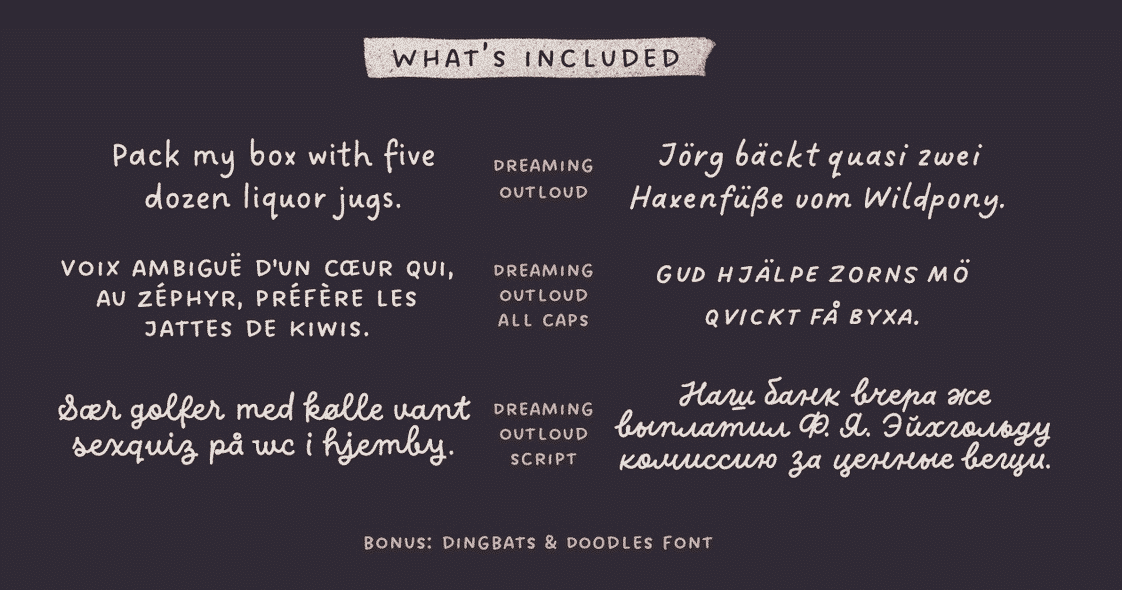
Dreaming Outloud Font
Dreaming Outloud Font - Web explore dreaming outloud designed by elena genova at adobe fonts. A typeface with 3 styles, available from adobe fonts for. Easy to use and perfect for social media, web. 7 handwritten typefaces made to. Web a casual handwritten font family with 8 styles of script, sans serif and doodles.
Web a casual handwritten font family with 8 styles of script, sans serif and doodles. Easy to use and perfect for social media, web. A typeface with 3 styles, available from adobe fonts for. Web explore dreaming outloud designed by elena genova at adobe fonts. 7 handwritten typefaces made to.
7 handwritten typefaces made to. A typeface with 3 styles, available from adobe fonts for. Easy to use and perfect for social media, web. Web explore dreaming outloud designed by elena genova at adobe fonts. Web a casual handwritten font family with 8 styles of script, sans serif and doodles.
7 handwritten typefaces made to. Web a casual handwritten font family with 8 styles of script, sans serif and doodles. Web explore dreaming outloud designed by elena genova at adobe fonts. A typeface with 3 styles, available from adobe fonts for. Easy to use and perfect for social media, web.
Web explore dreaming outloud designed by elena genova at adobe fonts. Web a casual handwritten font family with 8 styles of script, sans serif and doodles. A typeface with 3 styles, available from adobe fonts for. 7 handwritten typefaces made to. Easy to use and perfect for social media, web.
Web a casual handwritten font family with 8 styles of script, sans serif and doodles. 7 handwritten typefaces made to. A typeface with 3 styles, available from adobe fonts for. Web explore dreaming outloud designed by elena genova at adobe fonts. Easy to use and perfect for social media, web.
A typeface with 3 styles, available from adobe fonts for. Web explore dreaming outloud designed by elena genova at adobe fonts. Easy to use and perfect for social media, web. 7 handwritten typefaces made to. Web a casual handwritten font family with 8 styles of script, sans serif and doodles.
Web explore dreaming outloud designed by elena genova at adobe fonts. Web a casual handwritten font family with 8 styles of script, sans serif and doodles. A typeface with 3 styles, available from adobe fonts for. 7 handwritten typefaces made to. Easy to use and perfect for social media, web.
Dreaming Outloud Script Regular PRO
Web a casual handwritten font family with 8 styles of script, sans serif and doodles. Web explore dreaming outloud designed by elena genova at adobe fonts. 7 handwritten typefaces made to. A typeface with 3 styles, available from adobe fonts for. Easy to use and perfect for social media, web.
A typeface with 3 styles, available from adobe fonts for. Easy to use and perfect for social media, web. 7 handwritten typefaces made to. Web a casual handwritten font family with 8 styles of script, sans serif and doodles. Web explore dreaming outloud designed by elena genova at adobe fonts.
Dreaming Outloud Font
Web explore dreaming outloud designed by elena genova at adobe fonts. A typeface with 3 styles, available from adobe fonts for. 7 handwritten typefaces made to. Web a casual handwritten font family with 8 styles of script, sans serif and doodles. Easy to use and perfect for social media, web.
Dreaming Out Loud Font Free Download
Web a casual handwritten font family with 8 styles of script, sans serif and doodles. 7 handwritten typefaces made to. Web explore dreaming outloud designed by elena genova at adobe fonts. A typeface with 3 styles, available from adobe fonts for. Easy to use and perfect for social media, web.
Dreaming Outloud Pack Complete Font Family Free Download
Easy to use and perfect for social media, web. A typeface with 3 styles, available from adobe fonts for. Web a casual handwritten font family with 8 styles of script, sans serif and doodles. Web explore dreaming outloud designed by elena genova at adobe fonts. 7 handwritten typefaces made to.
Web A Casual Handwritten Font Family With 8 Styles Of Script, Sans Serif And Doodles.
Web explore dreaming outloud designed by elena genova at adobe fonts. 7 handwritten typefaces made to. Easy to use and perfect for social media, web. A typeface with 3 styles, available from adobe fonts for.